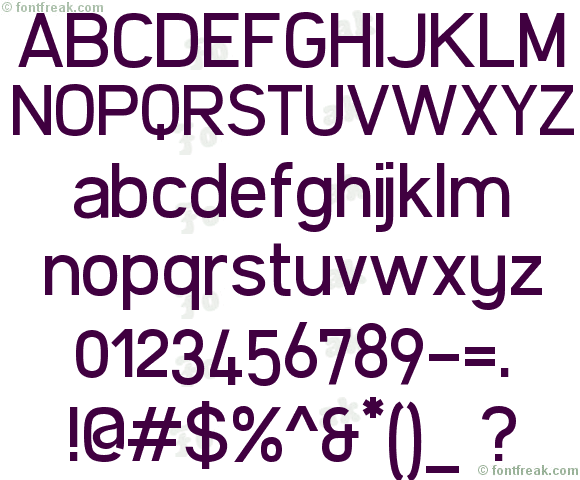
Filetto Bold
About Filetto Bold
Filetto Bold is a striking sans-serif font designed by the renowned kmzero font foundry, released in 2009. This typeface stands out with its thick, bold strokes that create a commanding presence on any page. The visual characteristics of Filetto Bold feature a balanced stroke weight that combines strength with clarity, making it ideal for a variety of applications. Its clean lines and minimalistic design ensure excellent legibility, while the generous spacing between letters contributes to its modern aesthetic.
This font is versatile and can be effectively used in several contexts. It is particularly well-suited for restaurant menus, where its boldness can make dish names pop and entice customers. Filetto Bold also works beautifully on movie posters, capturing attention with its strong visual impact. Additionally, it can enhance branding materials for small businesses, providing a unique touch that reflects professionalism and creativity. Graphic designers will find it a valuable asset for creating eye-catching promotional materials due to its ability to convey messages with clarity and style.
What truly sets Filetto Bold apart is its ability to combine boldness with elegance, making it a standout choice for various creative endeavors. For those interested in enhancing their design toolkit, the Filetto Bold font free download provides an excellent opportunity to explore its unique attributes and incorporate this dynamic font into their work.